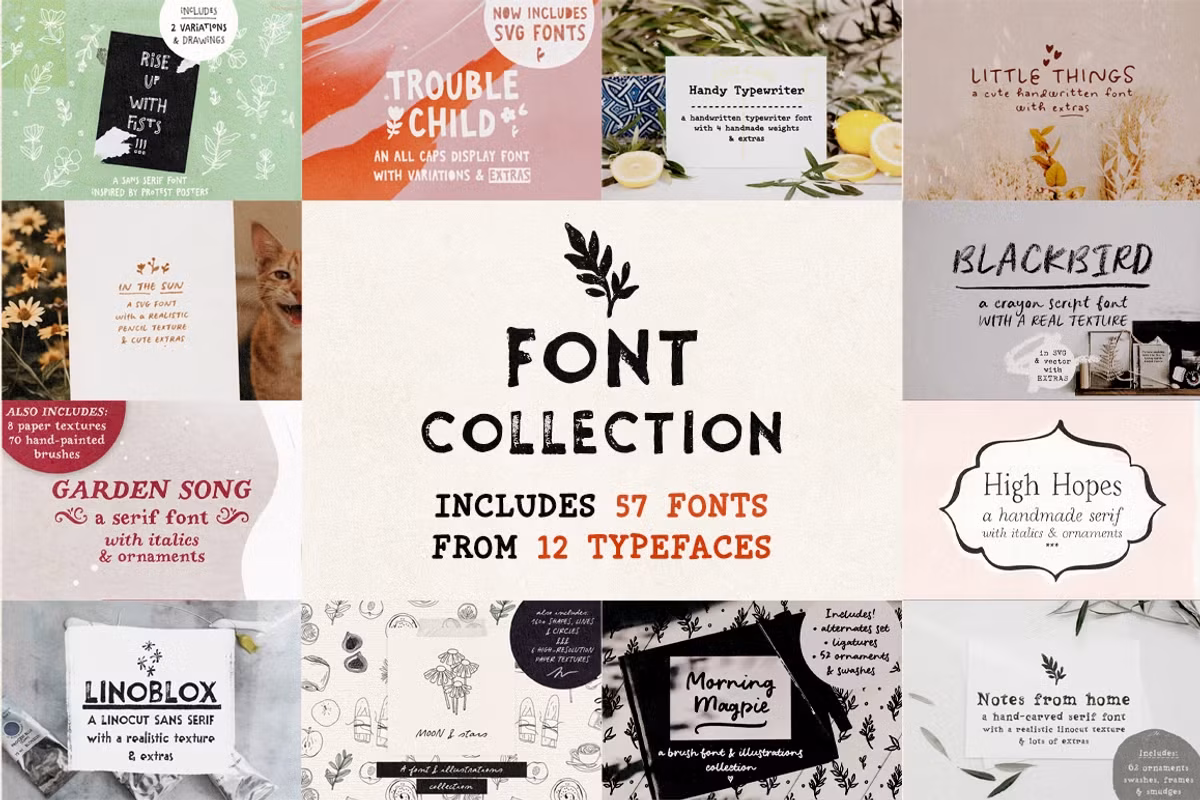
Font Collection Vol. 4 Free Download
Font Collection Vol. 4 Free Download is a curated bundle of versatile and stylish fonts designed to meet a wide range of creative needs. This collection typically includes a mix of elegant scripts, clean sans serifs, bold display fonts, and charming handwritten styles—making it perfect for branding, logos, invitations, packaging, social media, and editorial design.
Each typeface in Font Collection Vol. 4 Free Download is crafted with attention to detail and usability, offering features like ligatures, alternates, and multilingual support. Whether you're a designer, crafter, or entrepreneur, this bundle delivers premium-quality fonts to elevate your projects.